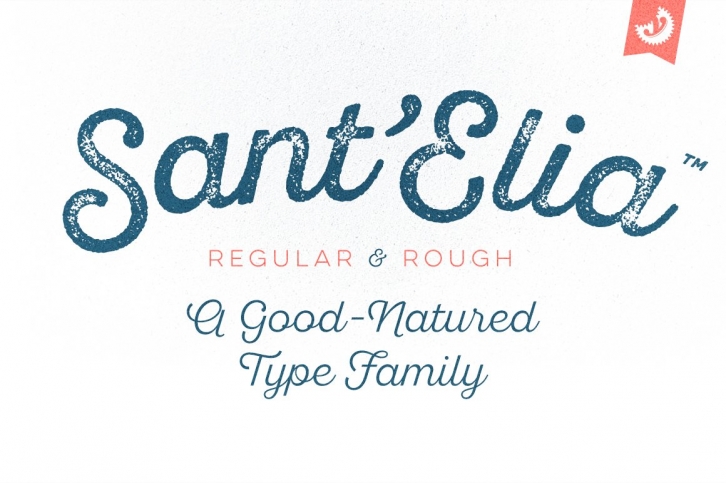
Sant’Elia Script from Yellow Design Studio is a robust modern type family with regular and rough versions in six weights. Its forms are crisp and welcoming with a splash of verve. Alternate versions feature angled strokes that inject drama and energy. Rough weights include three different distress levels that can be mixed for added control and customization.
Sant’Elia is a versatile family consisting of 44 fonts with extensive language support and advanced typographic features including: Swash (access alternate letterforms for J, L, T, Z, b, o, p, v, w), Stylistic Alternates (access alternate initial r and s), Stylistic Set 1 (access alternate initial r and s), Ligatures, Oldstyle Numerals, Superscript numerals and currency symbols